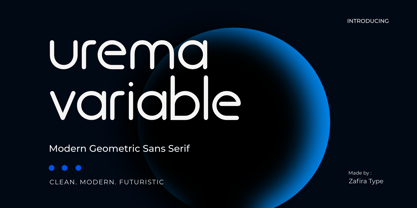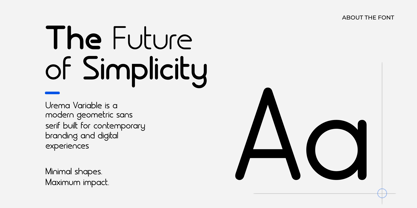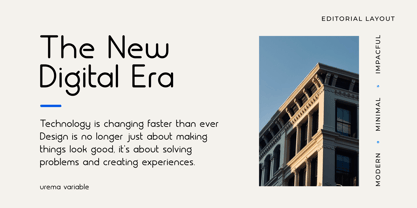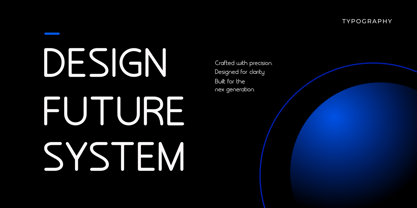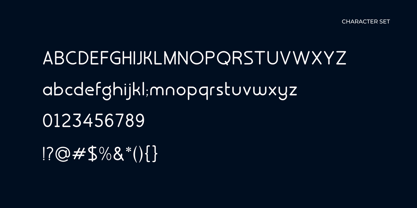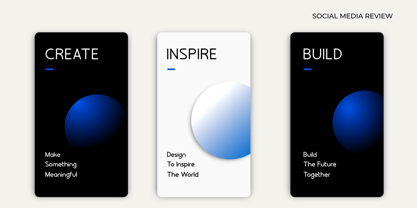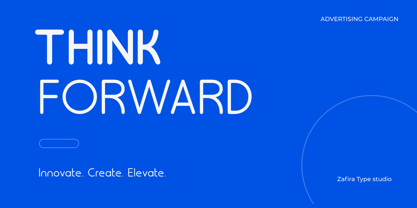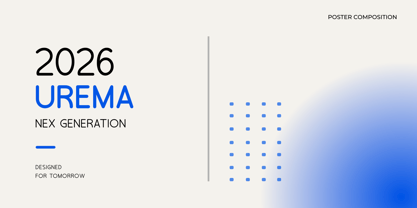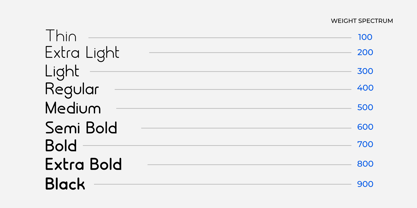
Urema Variable
by Zafira Type
The Urema Variable Font Family was designed by Su Hirno and published by Zafira Type. Urema Variable contains 1 styles. More about this family
Urema Variable is a modern and refined sans serif typeface designed to deliver flexibility, clarity, and elegance in a single variable font. With a smooth weight axis ranging from Thin to Black, Urema allows designers to create seamless typographic hierarchies while maintaining a consistent and sophisticated appearance.
Its balanced proportions, clean lines, and contemporary character make it suitable for a wide range of creative projects, including branding, editorial design, packaging, advertising, social media, websites, and user interfaces.
Whether used for striking headlines or refined body text, Urema Variable adapts effortlessly to different design needs, offering precision and versatility for both digital and print applications.
Designers: Su Hirno
Foundry: Zafira Type